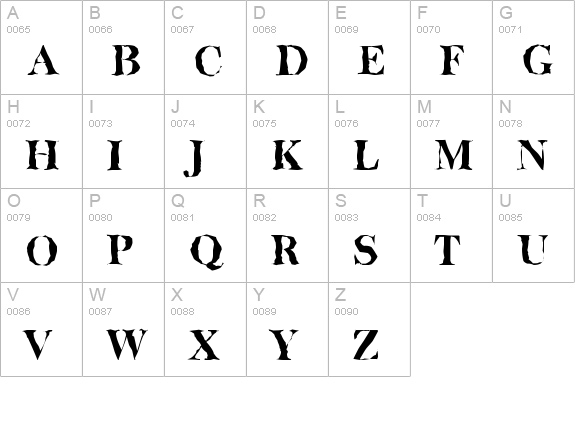
BaskervilleRandom-Xbold-Regular is the standard, neutral variant in the BaskervilleRandom typeface family \xE2\x80\x94 well suited to general body text, paragraphs, and standard typographic work.
BaskervilleRandom-Xbold-Regular font is a bold and striking typeface that commands attention with its strong presence. Its thick and well-defined letterforms exude confidence and authority, making it an ideal choice for headlines, titles, and other prominent text. The unique design of this font adds a touch of sophistication and elegance to any project. What makes BaskervilleRandom-Xbold-Regular font even more appealing is that it is available for free download at FontsMarket.com. This means that you can easily access this high-quality typeface without any cost, making it a valuable addition to your font collection. Whether you're working on a print design, web project, or any other creative endeavor, BaskervilleRandom-Xbold-Regular font is sure to make a bold statement and elevate the overall look of your work. Download it today and start using this versatile font to enhance your designs.